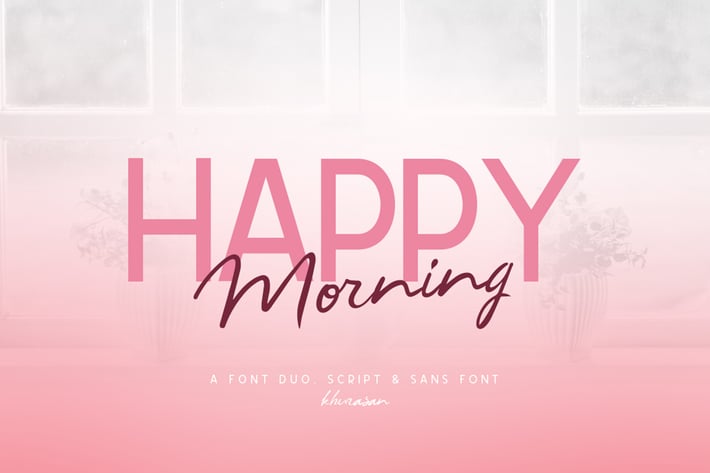
Happy Morning Font Duo
khurasan
Happy Morning Font Duo, a beauty script and sans nice font type. Happy Morning it’s perfect for namecard, poster, logo, magazine, cover, banner, tshirt and headers, or even large-scale artwork..